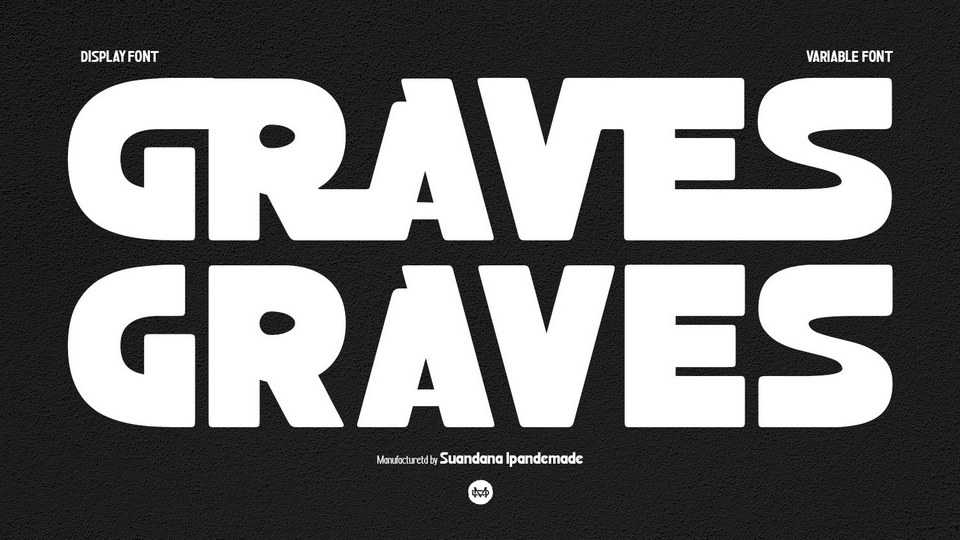
Download Graves font, a bold display typeface to get a message more impressive. Graves is perfect for any branding, product packaging, invitation, quotes, t-shirt, label, poster, logo etc.
Designer: TypeClassHeroes